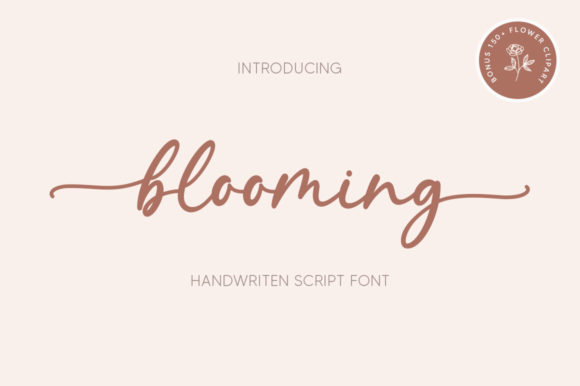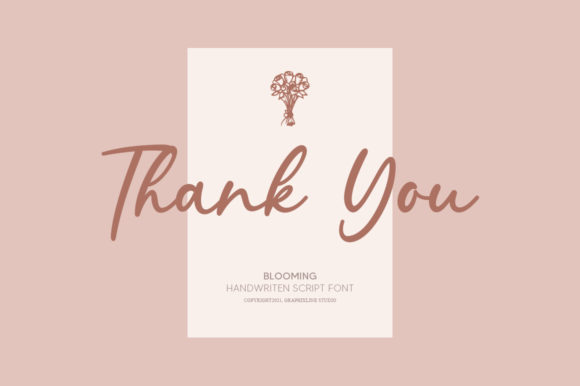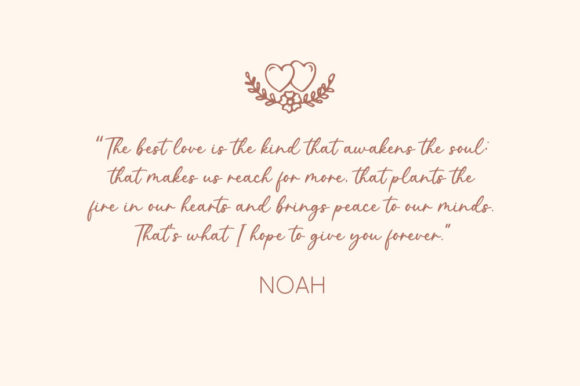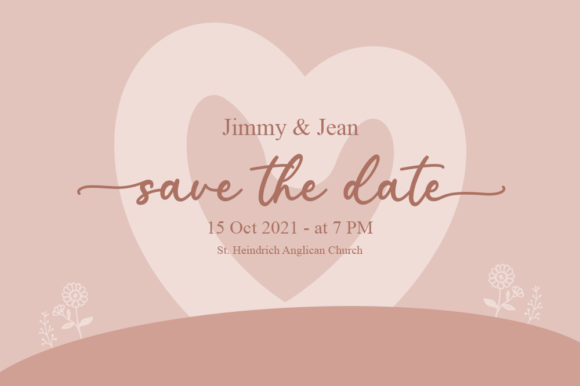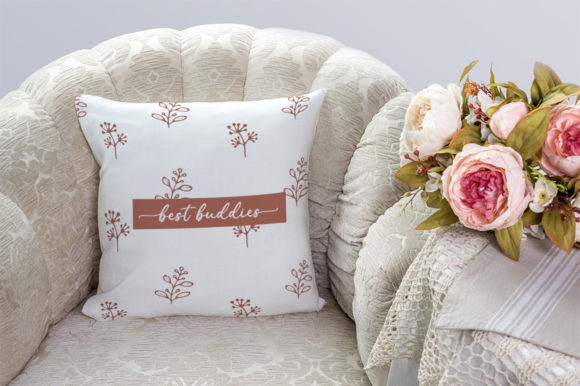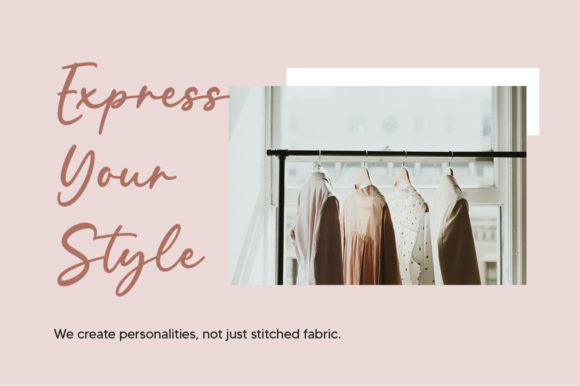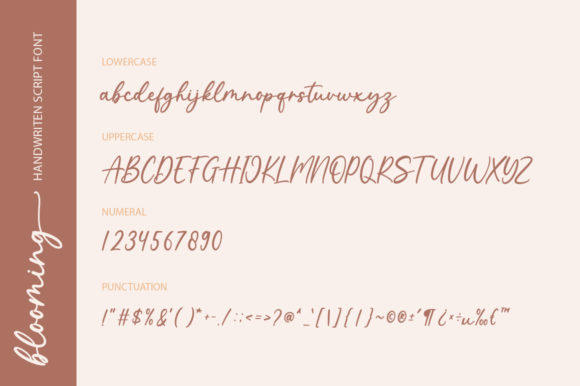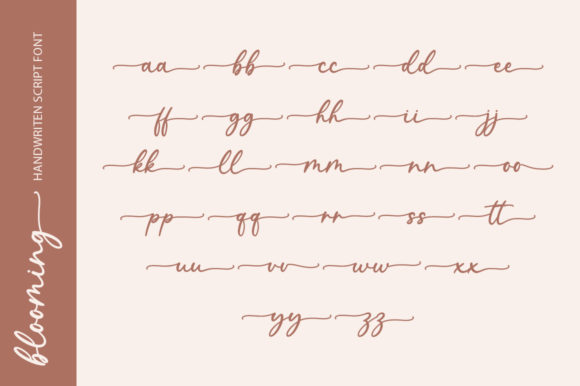
Blooming Font
Blooming is a lovely and delicate script font that exudes elegance and class. This font is PUA encoded which means you can access all glyphs and swashes with ease!